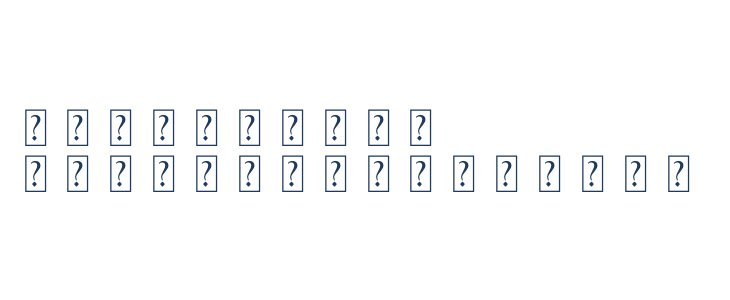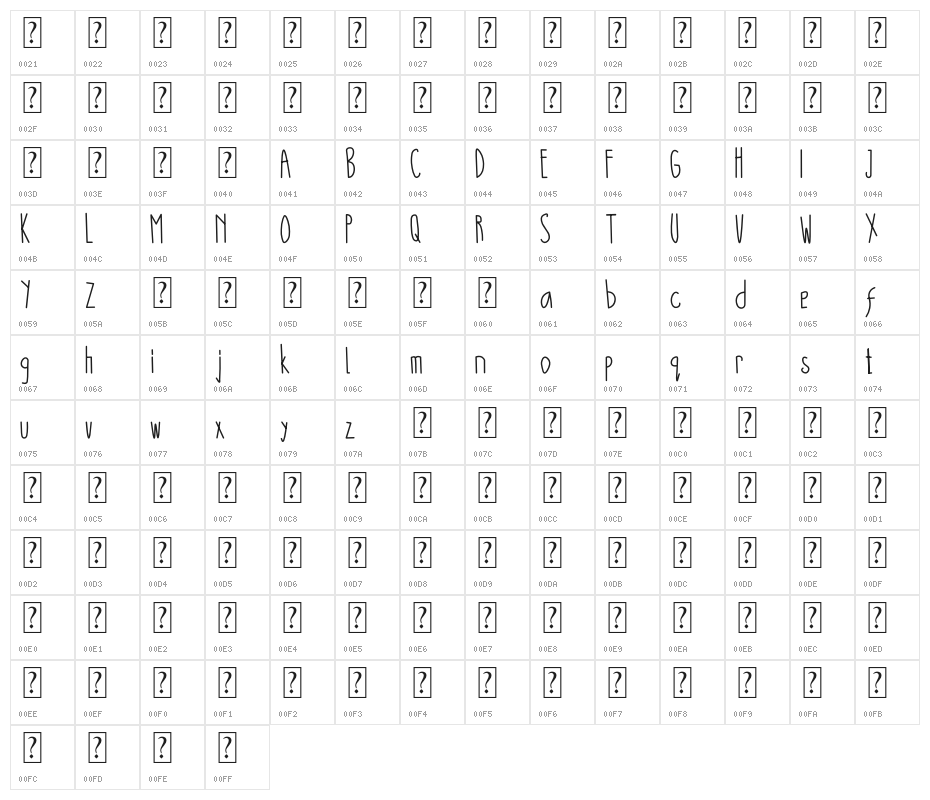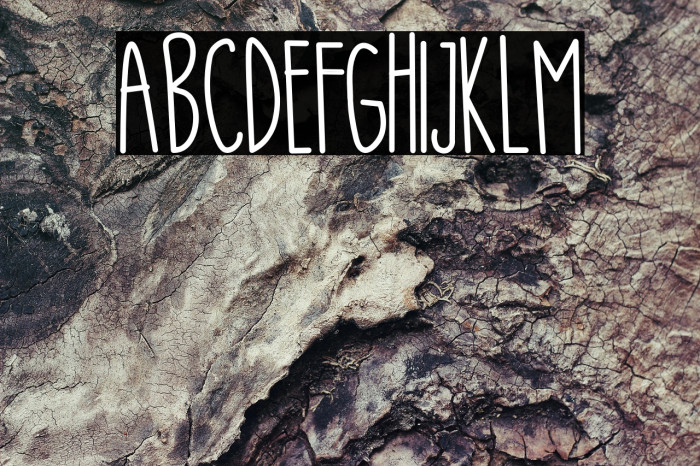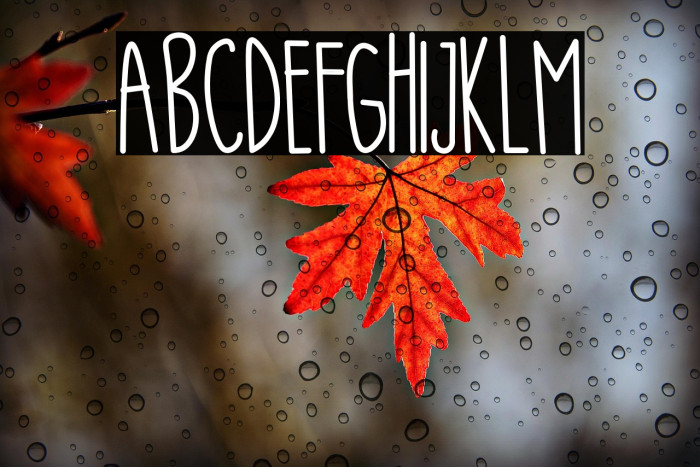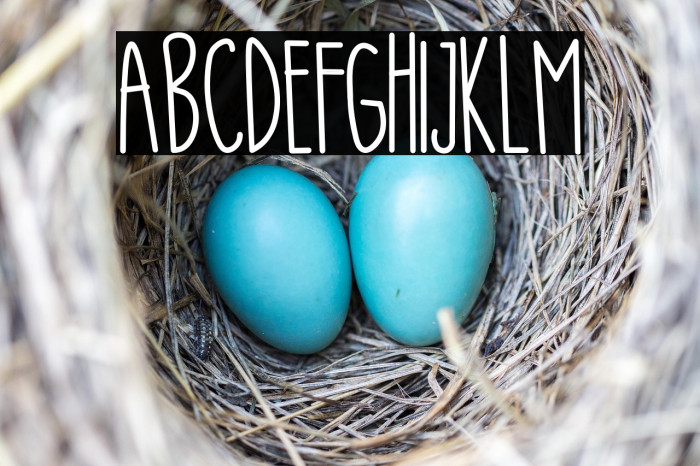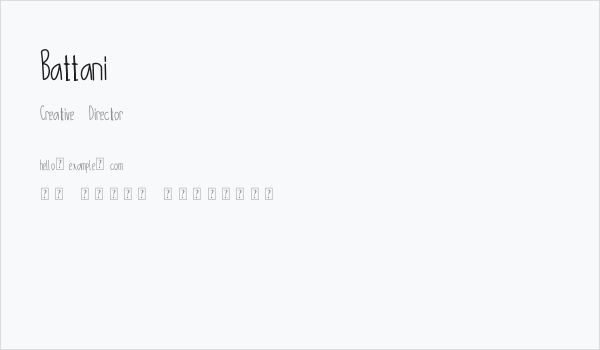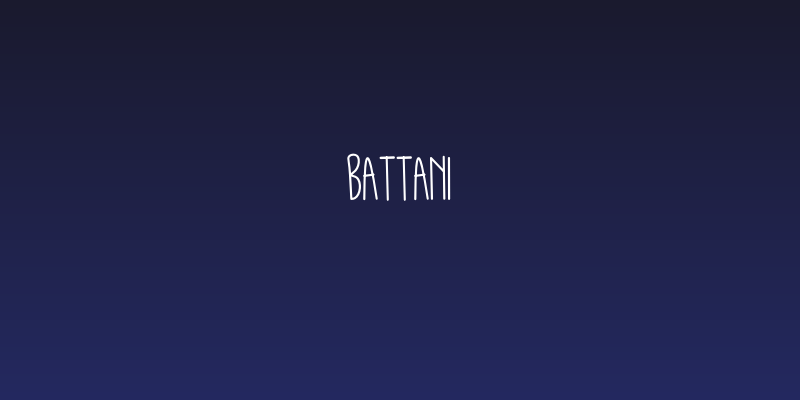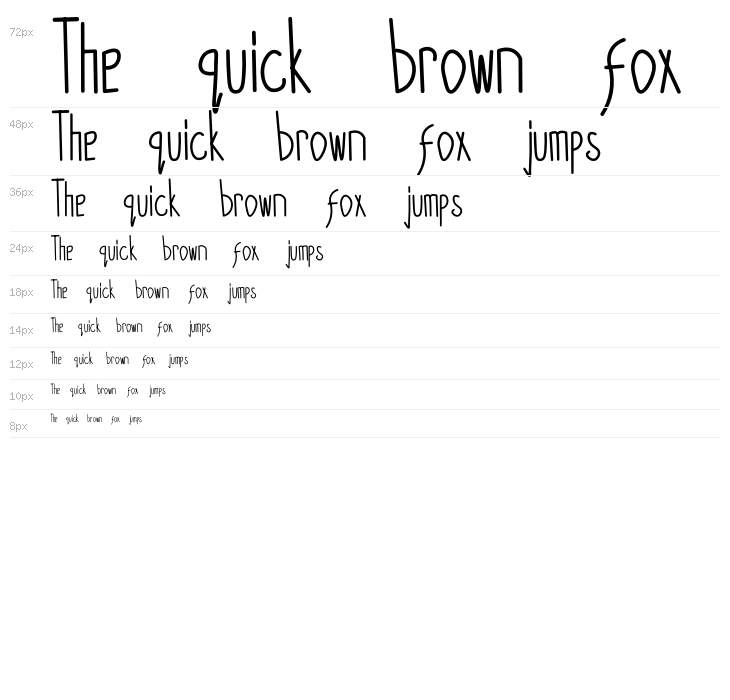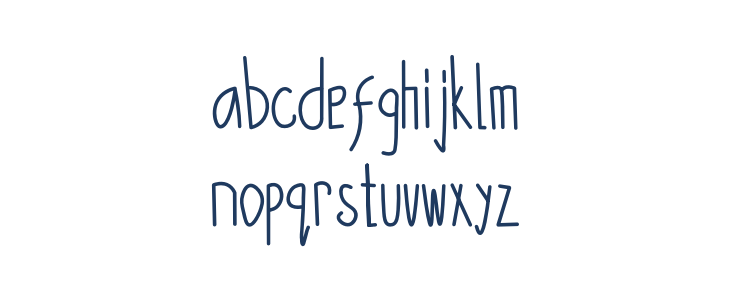
Battani Font
Battani Description
This font features a playful and quirky design with tall, narrow letters that have a hand-drawn appearance. The uppercase letters are uniform in height, while the lowercase letters exhibit a slight variation, adding to the casual and informal feel. The strokes are consistent in width, giving the font a clean and modern look. The lack of serifs and the slightly irregular shapes contribute to its unique and friendly character. This style is well-suited for projects that require a touch of whimsy and creativity.
| Proposed Projects | Ideal for children's books, creative posters, casual branding, and playful invitations. |